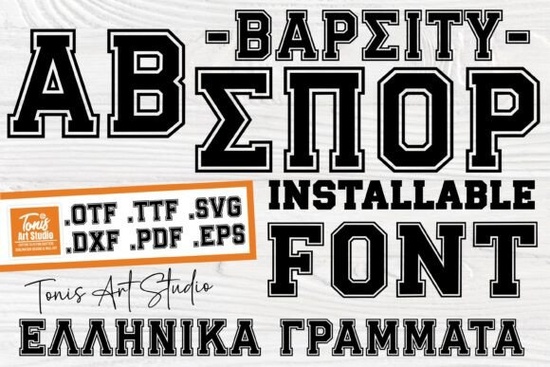
The Greek Jersey Font is a display typeface that brings the classic Greek alphabet into your design projects with a clean, sporty style. It's built around the same letterforms you'd see on fraternity and sorority apparel, university merchandise, and athletic jerseys. If you need authentic Greek characters that look sharp at any size, this font delivers without fuss.
What makes this Greek font different from other display fonts?
Plenty of so-called Greek fonts only include a handful of characters or lean so hard into decoration that the letters become hard to read. This one covers the full Greek alphabet in a balanced, jersey-inspired style that holds up whether you're cutting vinyl at two inches or printing a banner at two feet. The consistency across every letter matters especially when you're placing multiple characters side by side for chapter names or organization abbreviations.
Compared to more thematic options like the retro-inspired spooky display font or a horror-themed typeface, the Greek Jersey font stays practical. It doesn't rely on textures, drips, or novelty effects. Just strong letterforms rooted in a recognizable tradition.
This typeface fits a specific set of projects, but within that space, it's hard to beat:
- Print-on-demand sellers designing fraternity, sorority, or Greek life merchandise for platforms like Etsy or Redbubble
- Cricut and Silhouette crafters cutting heat transfer vinyl for custom shirts, tote bags, and hats
- Small business owners creating logos, signage, or branded materials with a collegiate or athletic feel
- Event planners making decorations for Greek-themed parties, fundraisers, or graduation celebrations
- Graphic designers working on campus recruitment materials, alumni communications, or club branding
What can you actually make with it?
Here are real-world ways crafters and designers put this font to use:
Custom apparel Rush week t-shirts, bid day sweatshirts, intramural team jerseys, and alumni reunion gear. The sporty lettering style fits anything meant to be worn.
Signs and banners Greek letters are a staple at campus events, chapter houses, and recruitment tables. This font gives you the right look without tracing characters by hand.
Digital graphics Social media posts, website headers, email invitations, and Zoom backgrounds for Greek organizations and alumni groups.
Home decor Wall art, throw pillows, mugs, and framed prints with Greek initials make thoughtful gifts for graduates or active chapter members.
If you're building a broader collegiate or school-themed project alongside Greek lettering, the collegiate-style brown display font works well for secondary text or supporting elements.
Tips for better results
- Test at your final output size before cutting or printing letters that look great on screen may need spacing adjustments in physical form
- Pair it with a simple sans-serif for any supporting text so the Greek characters stay the focal point
- Kern carefully when placing multiple Greek letters next to each other some pairs may need manual spacing adjustments
Is it worth adding to your font collection?